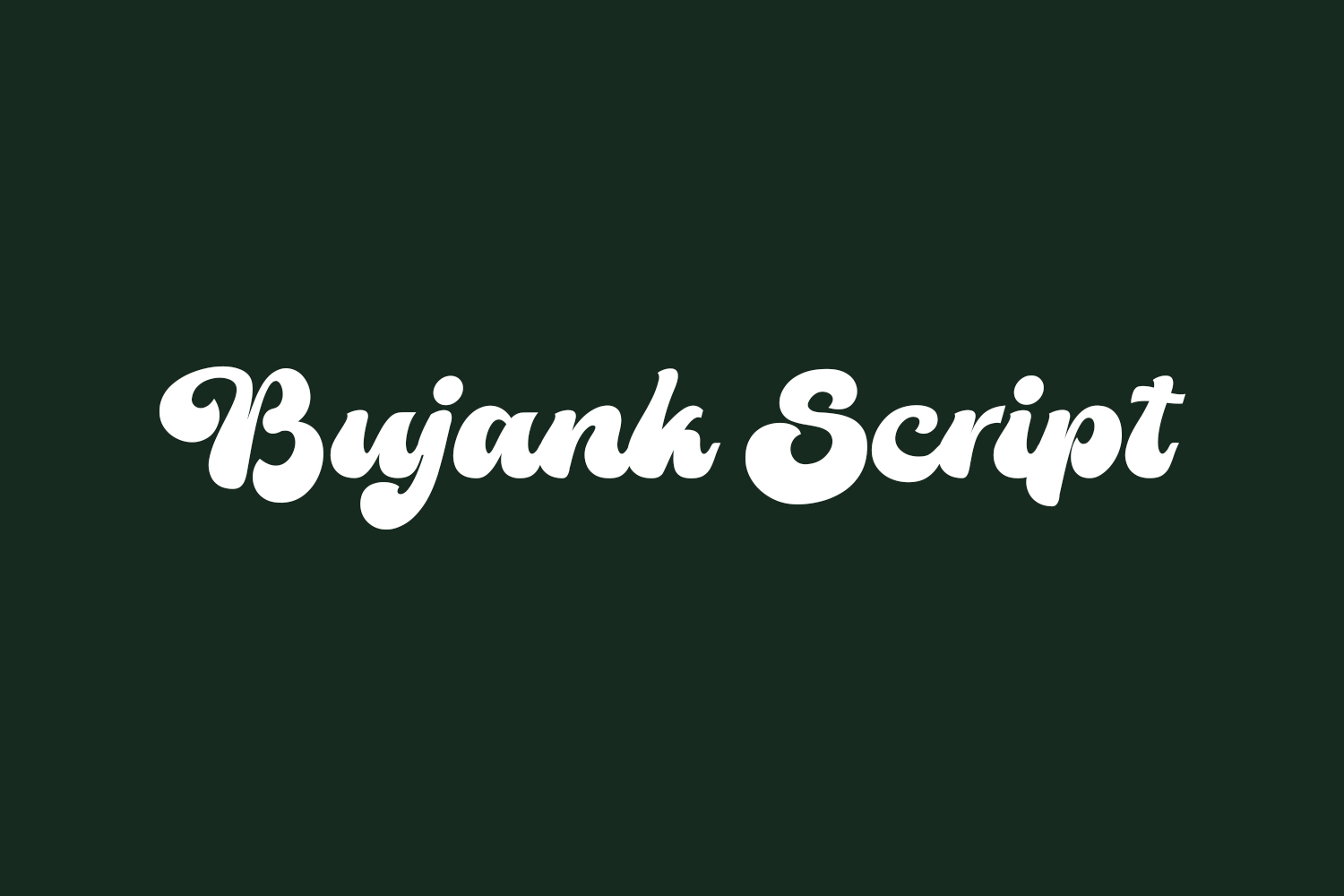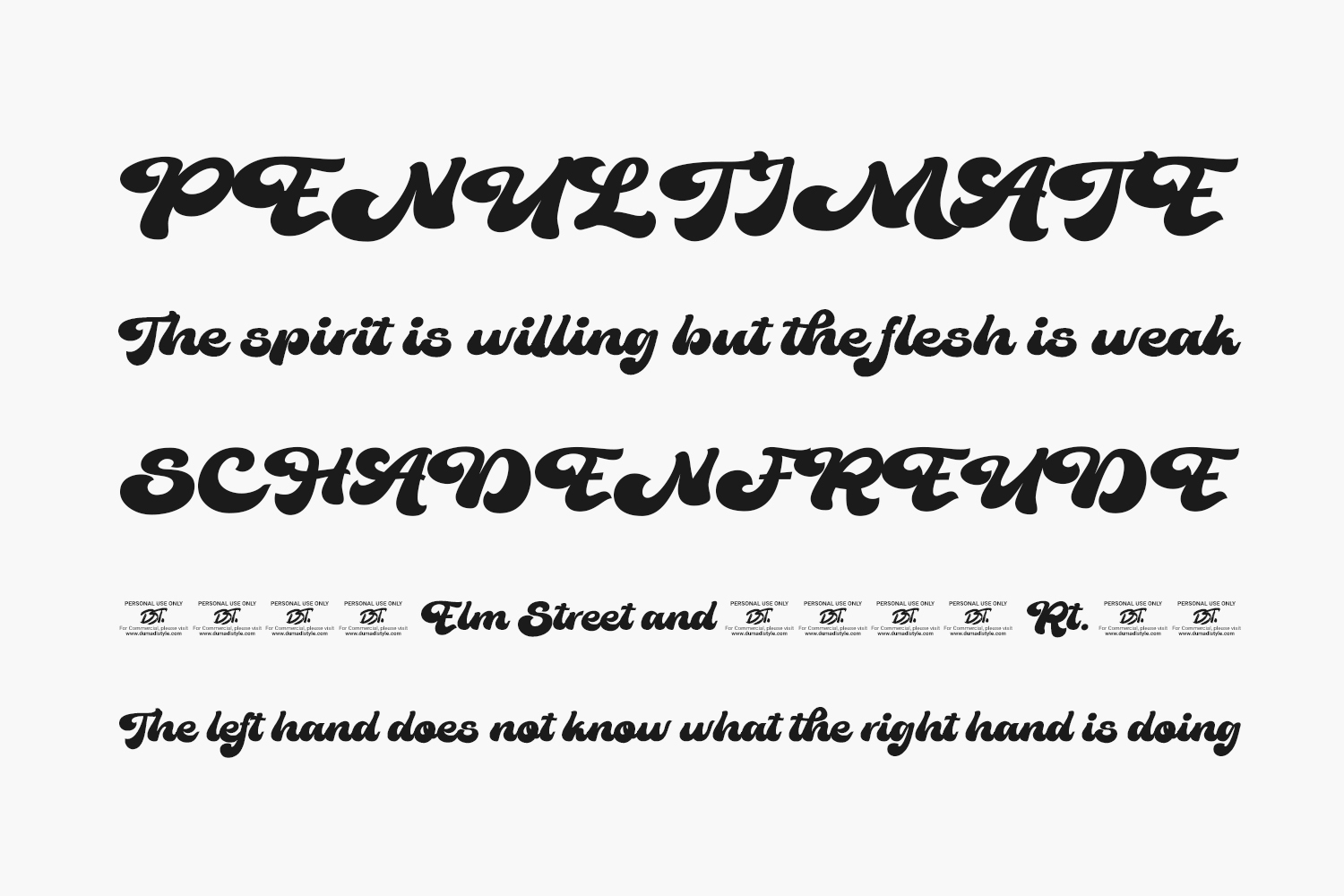
The Bujank Script Free Font offers a delightful retro display, featuring friendly shapes perfect for everyday use. Its casual yet captivating design is crafted to elevate and enrich your creative projects. Whether for logo designs, headlines, movie titles, product branding, posters, or beyond, this versatile typeface maximizes visual impact. Download the font for free if you need it for personal use or purchase the full version for commercial use.